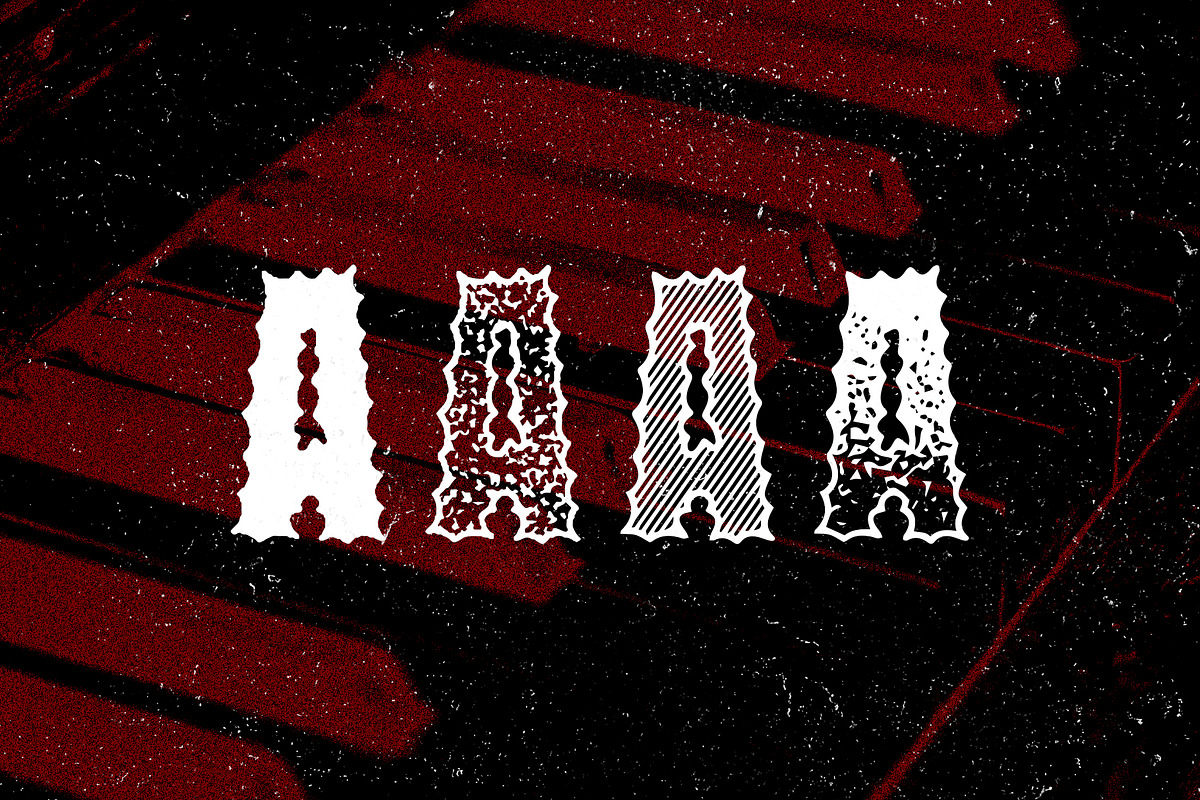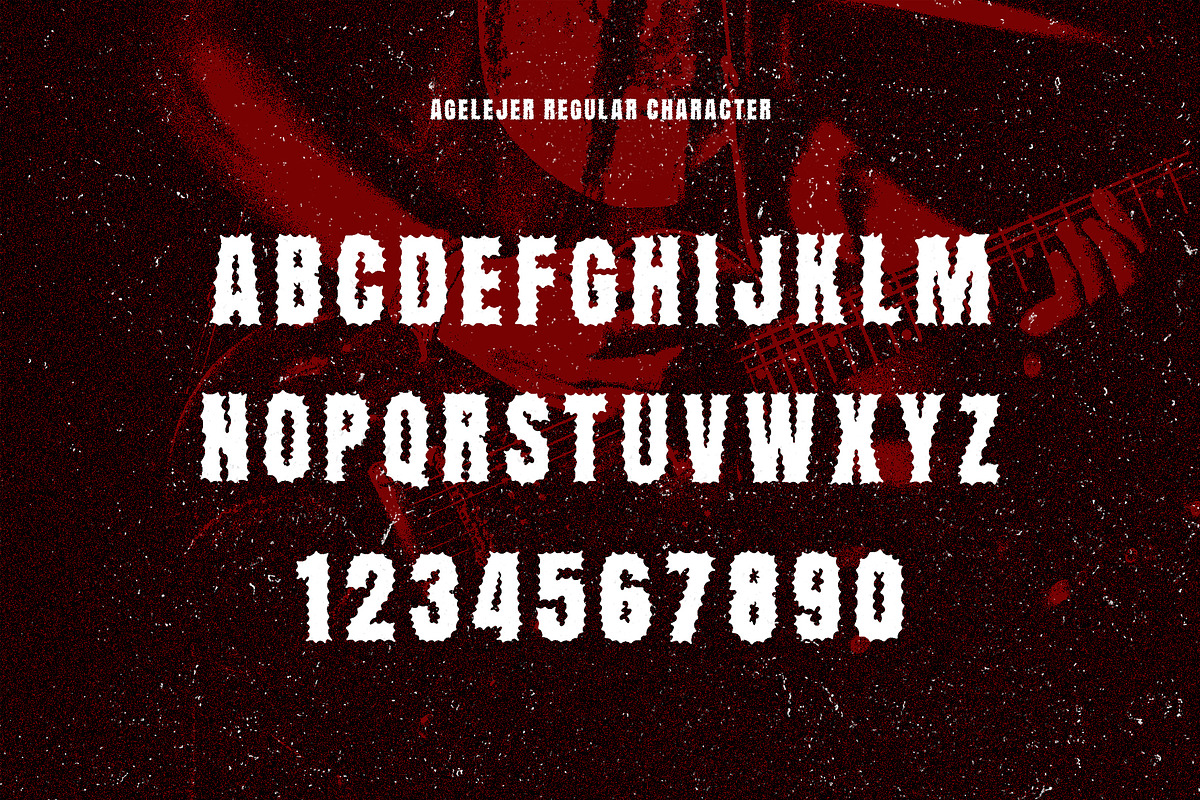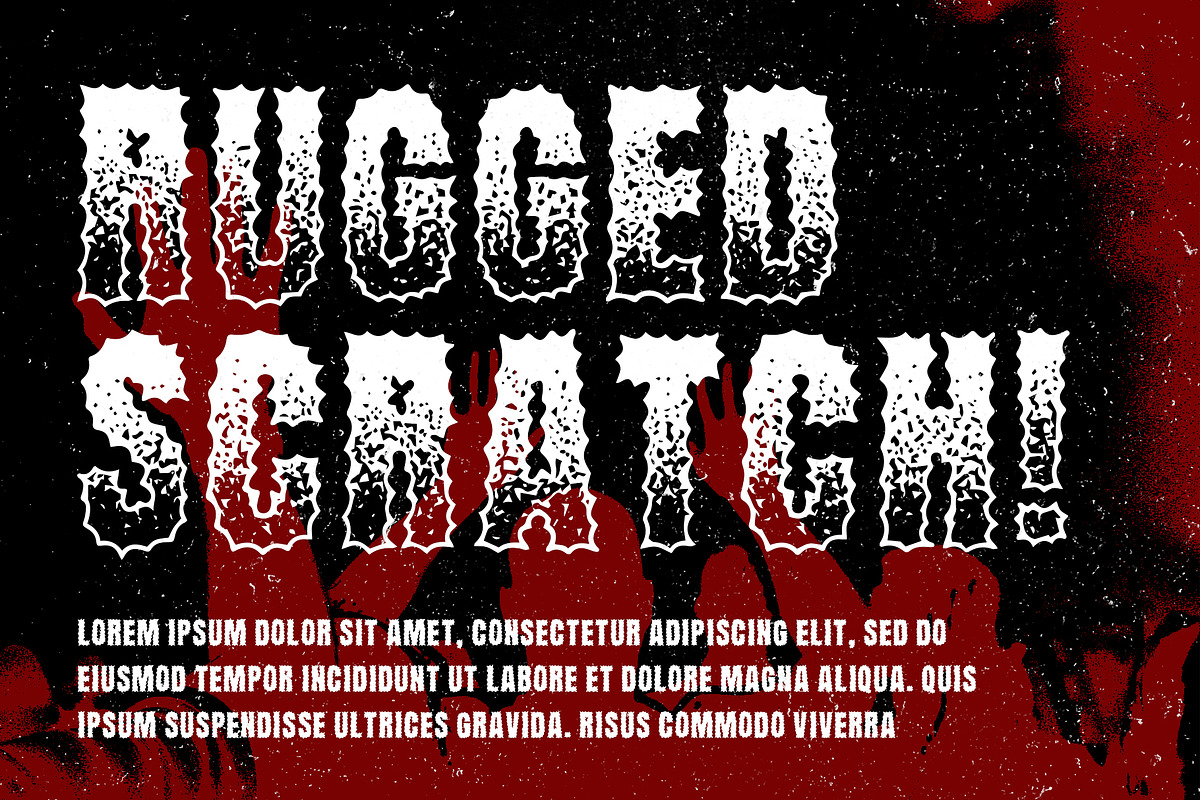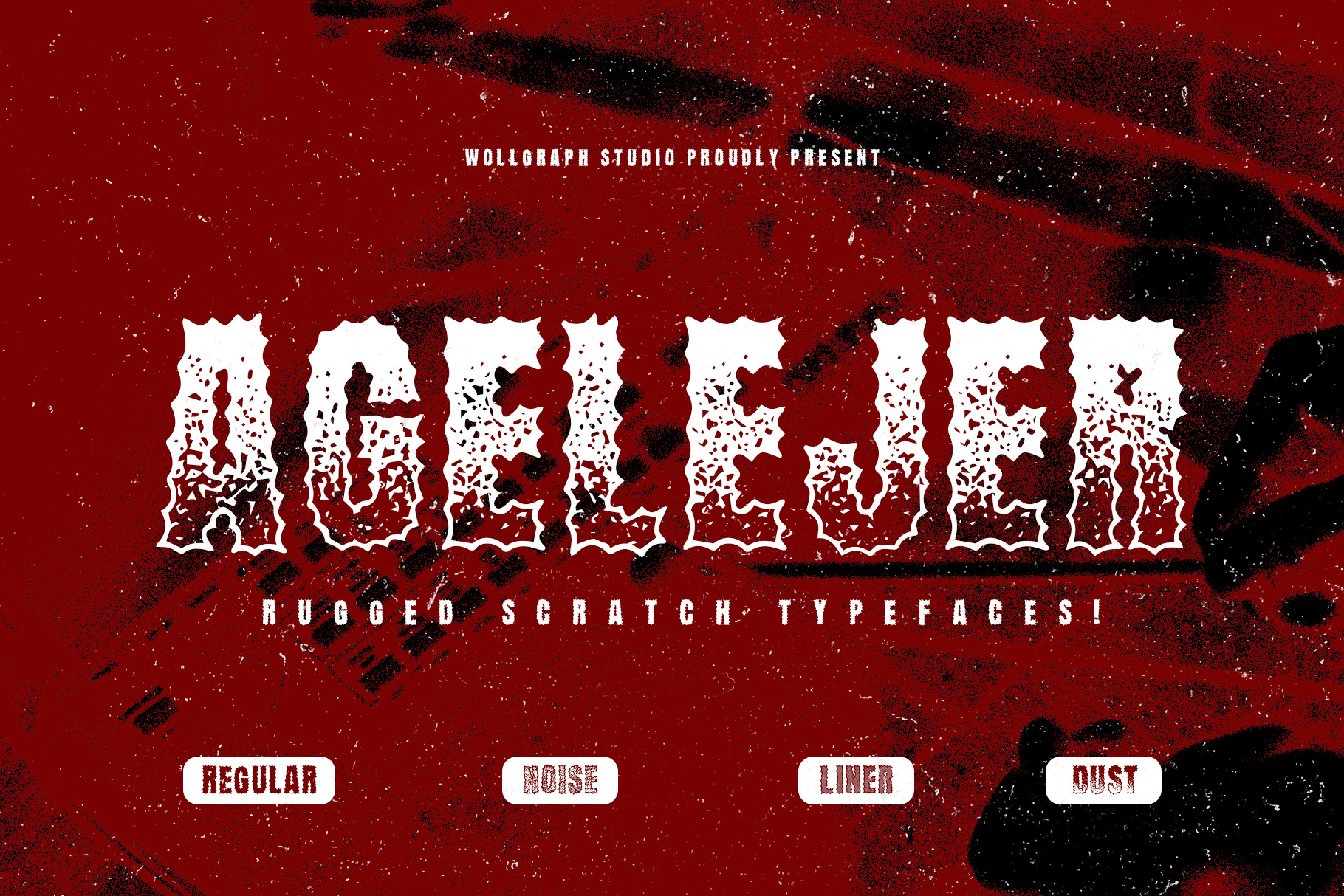
Agelejer Typefaces
Agelejer typeface, ideal for various graphic design purposes, including branding materials, t-shirts, prints, posters, photography, quotes, and more.